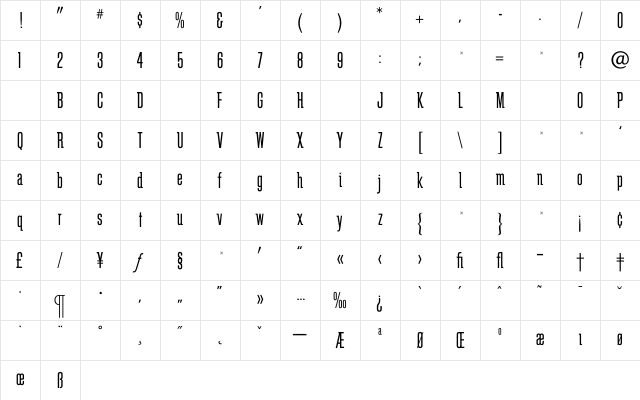
SchindlerBook Regular
Design Context for SchindlerBook
SchindlerBook is a composed and adaptable typeface that performs quietly and consistently across a wide range of design contexts.
Pro Tip: Use SchindlerBook in both headline and body roles to test its range before committing to a single application.